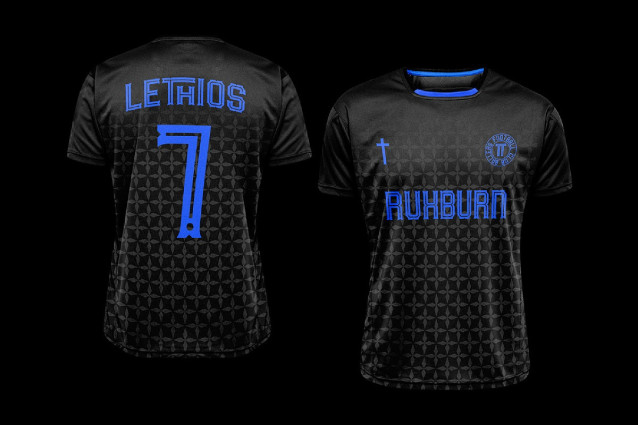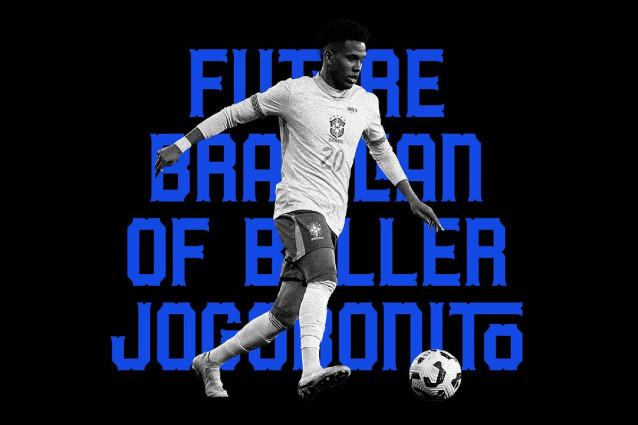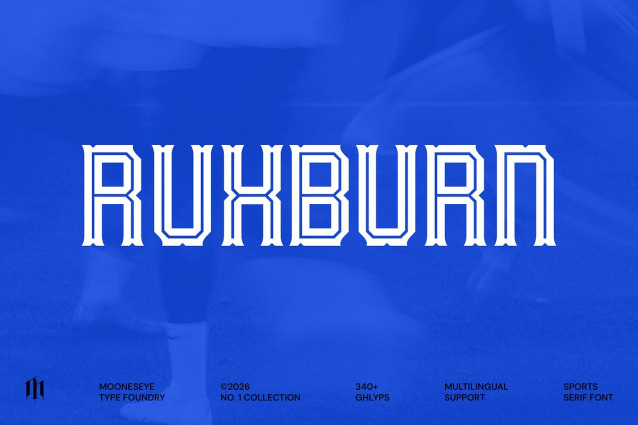
Ruxburn Font
Ruxburn Font a powerhouse typeface that blends the raw intensity of modern street culture with the disciplined precision of professional stadium graphics. Whether you are designing the next iconic football jersey or a high-octane e-sports logo, Ruxburn delivers a look that is both “heavyweight” and incredibly sleek.
Stop settling for generic “varsity” styles. Ruxburn offers a unique chiseled architecture that feels fast, strong, and undeniably premium. Use the Solid version for bold, punchy headlines that demand attention, or switch to the Inline version to create sophisticated, multi-layered looks perfect for high-end apparel and merchandise.